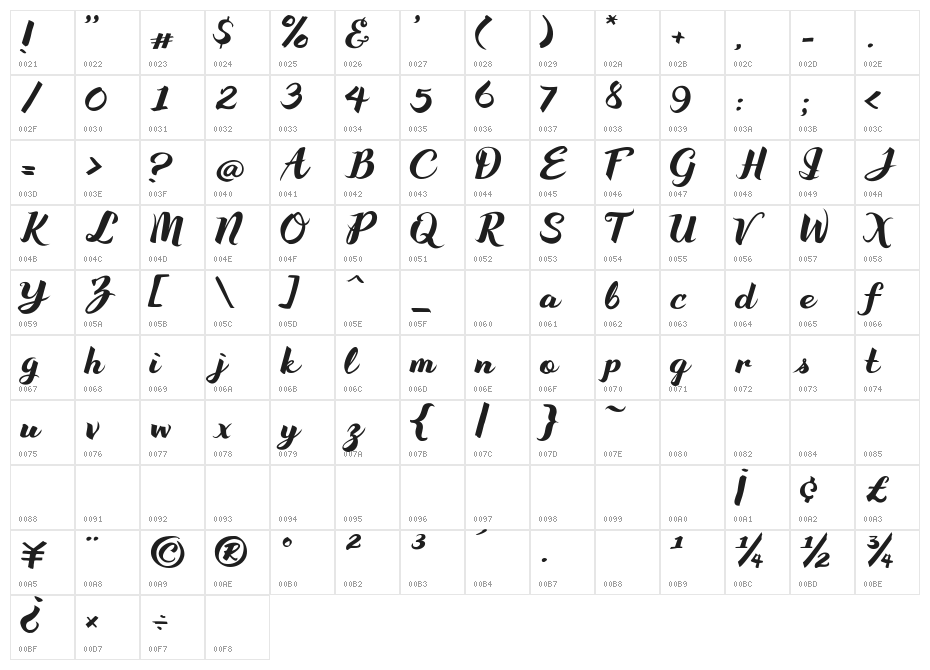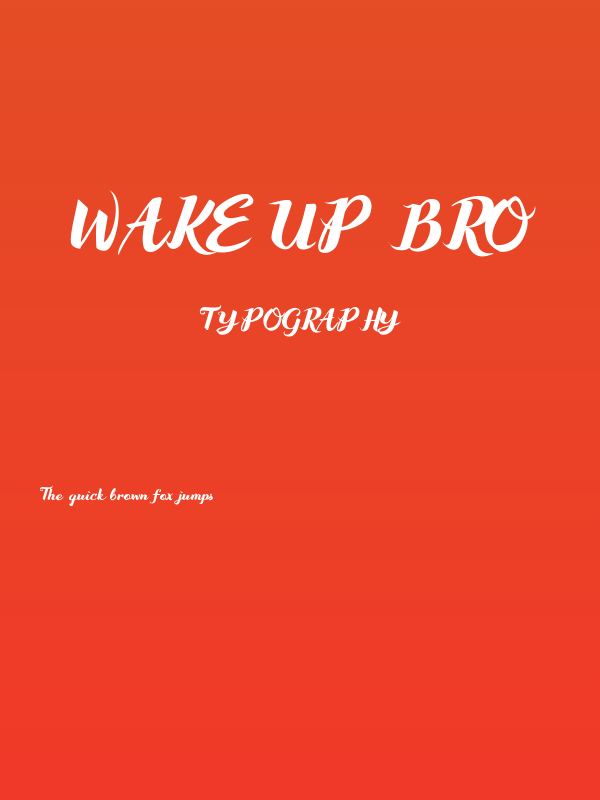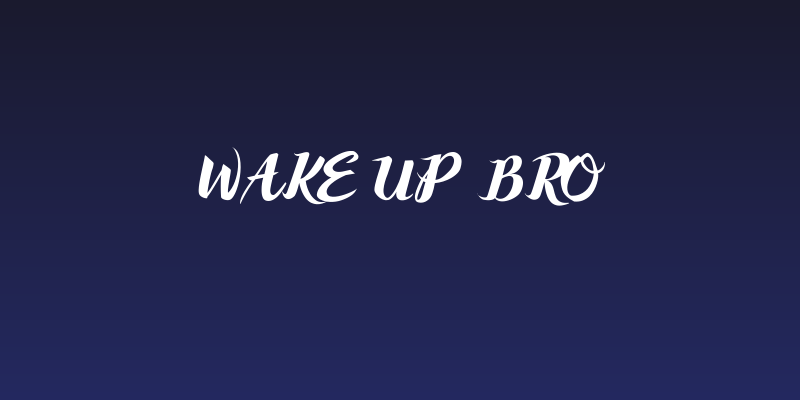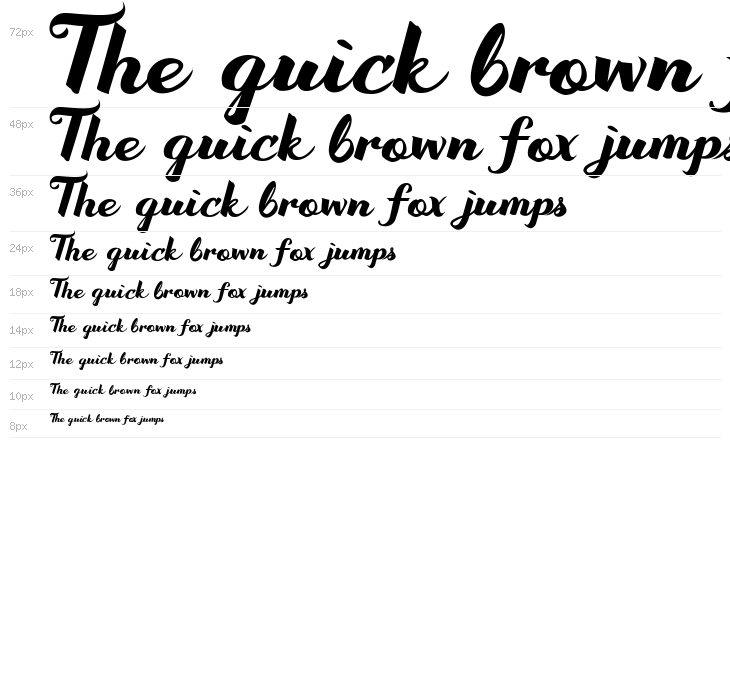
Wake Up Bro Font
| Caso d'uso | Logos, Headlines, Invitations |
| Progetti proposti | Ideal for branding, invitations, greeting cards, and any project that requires a touch of elegance and sophistication. |